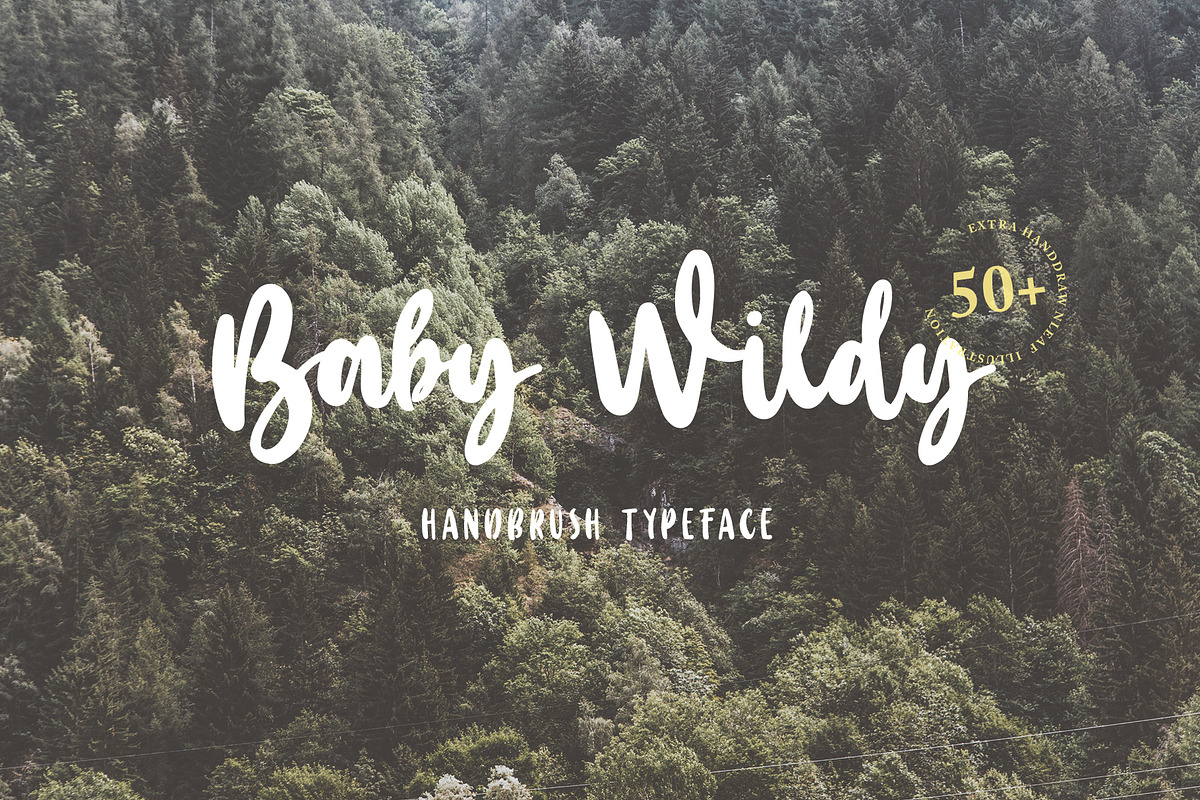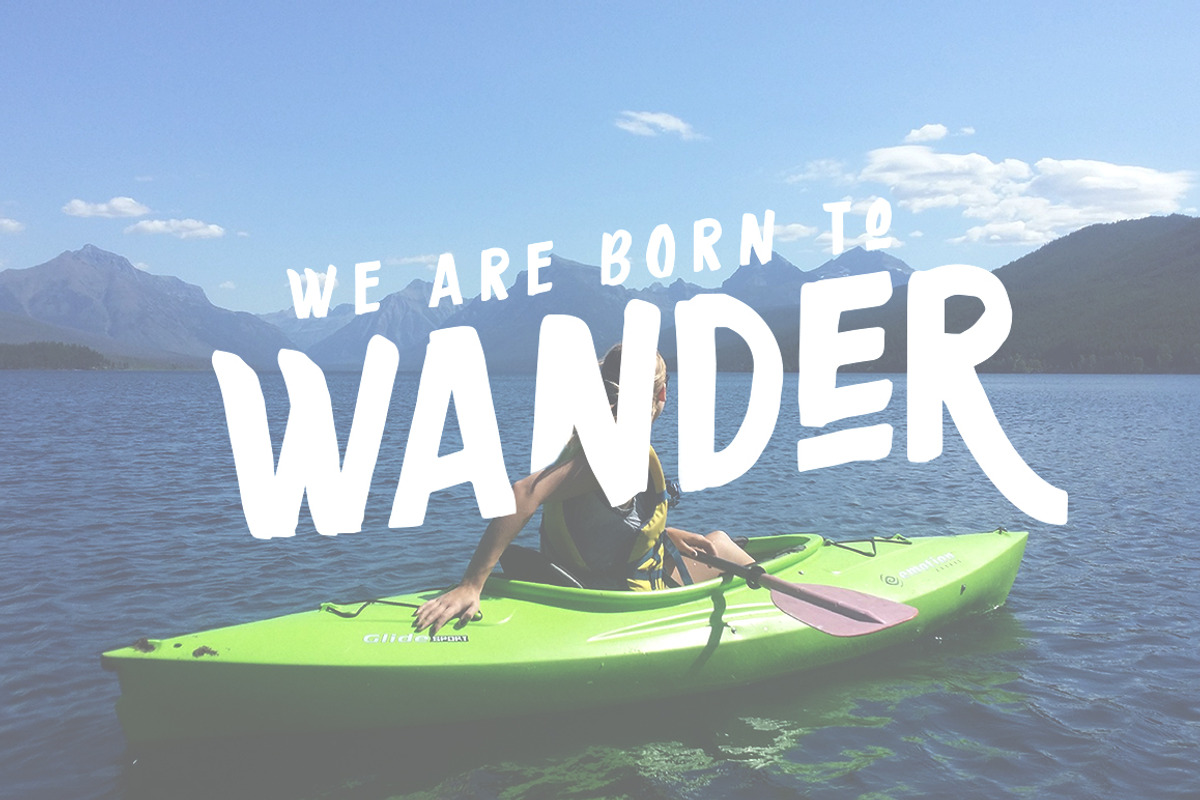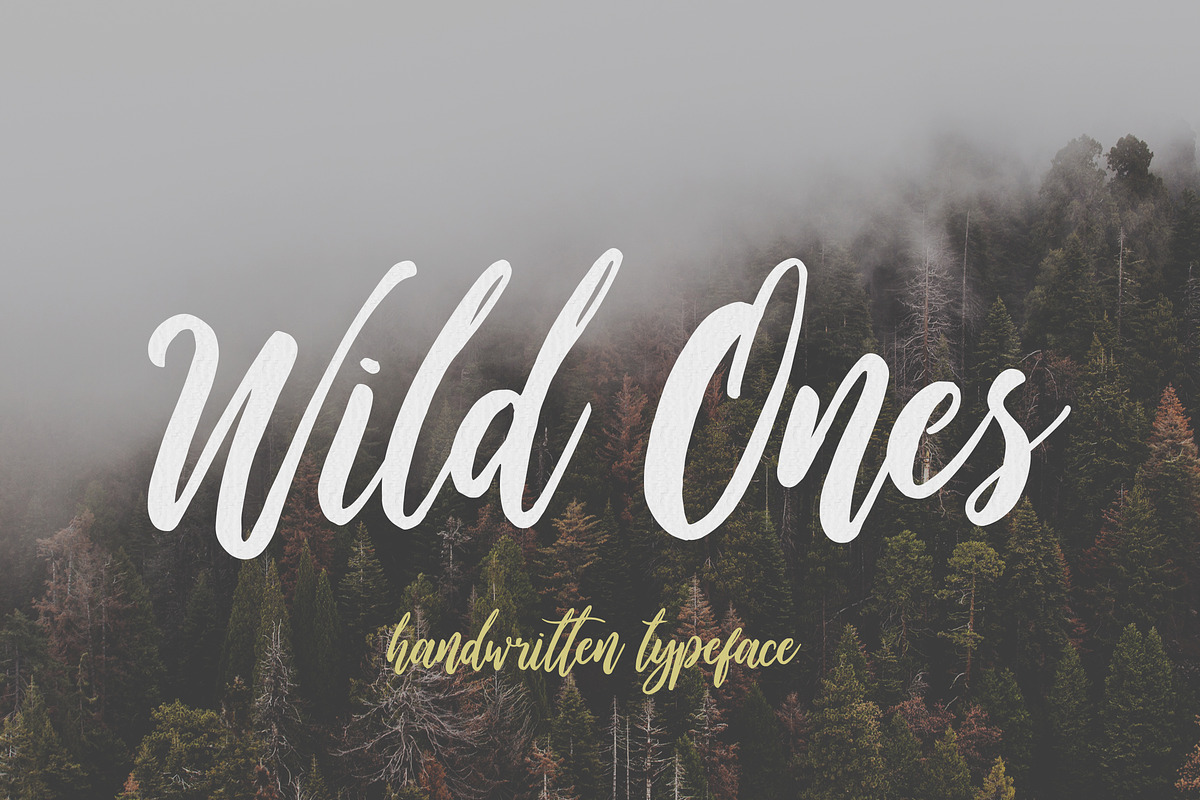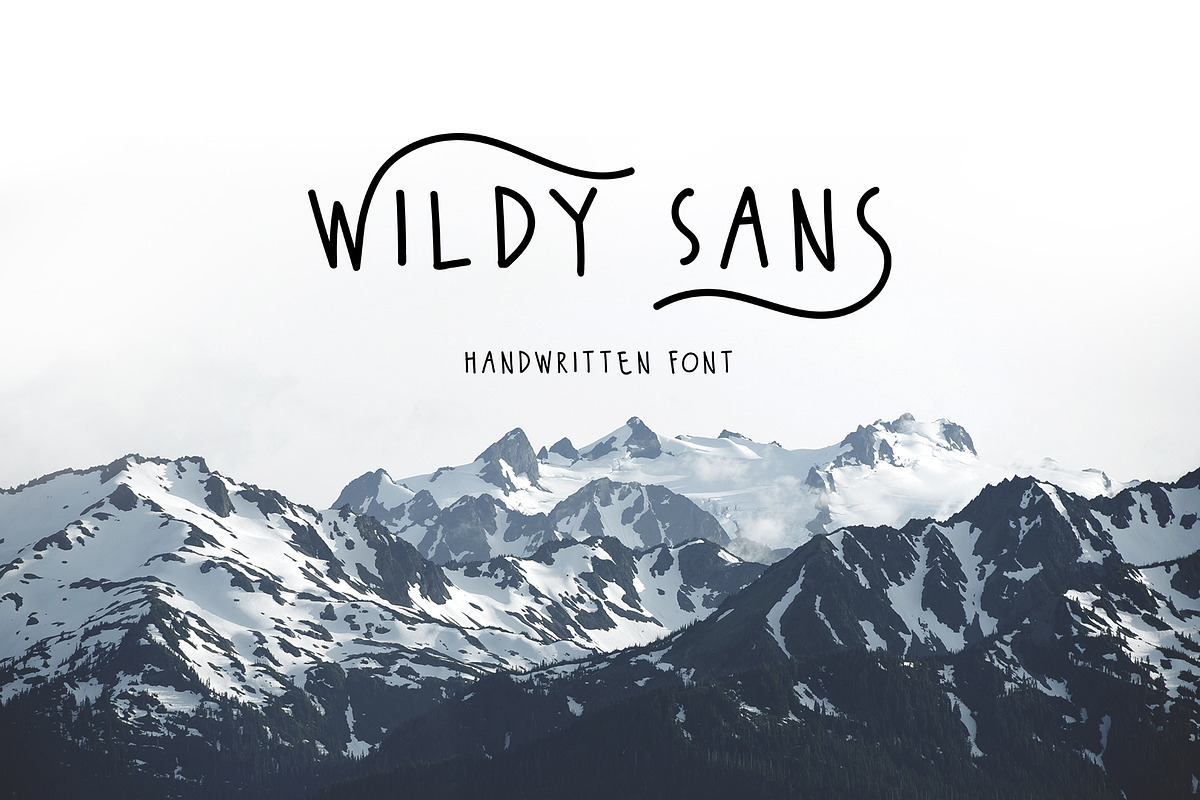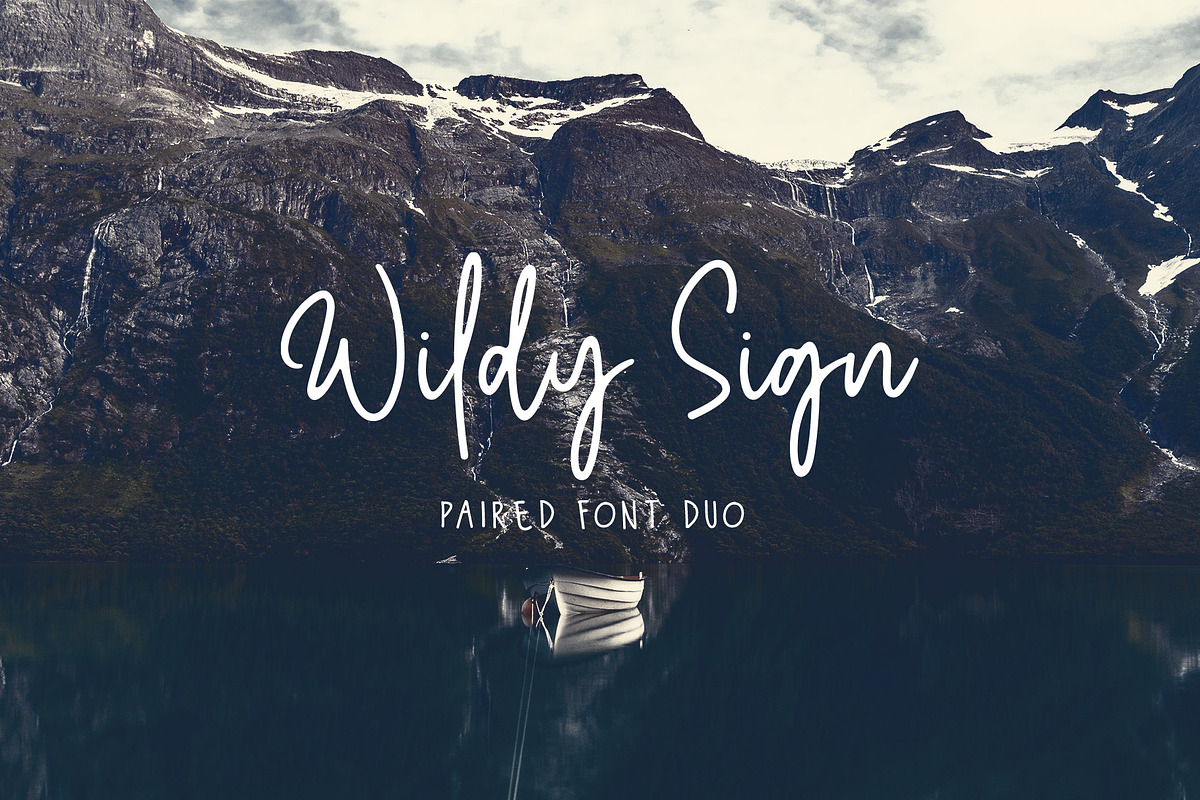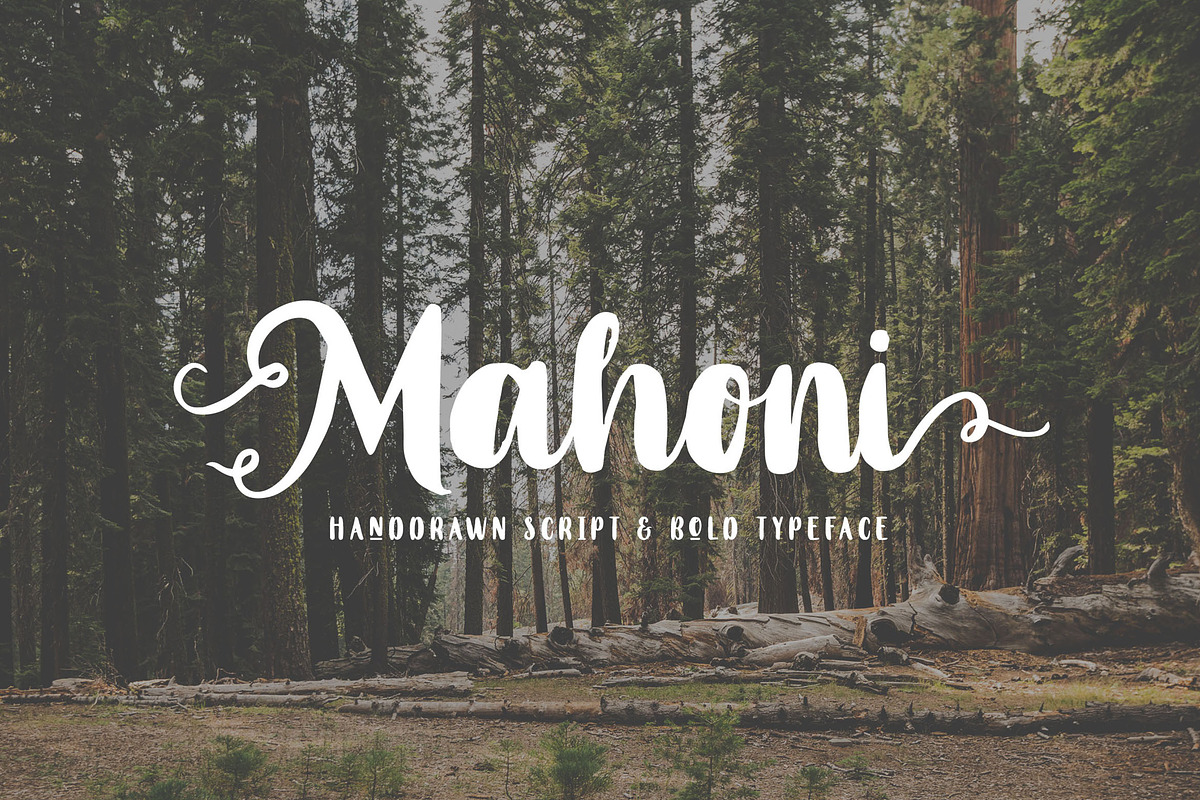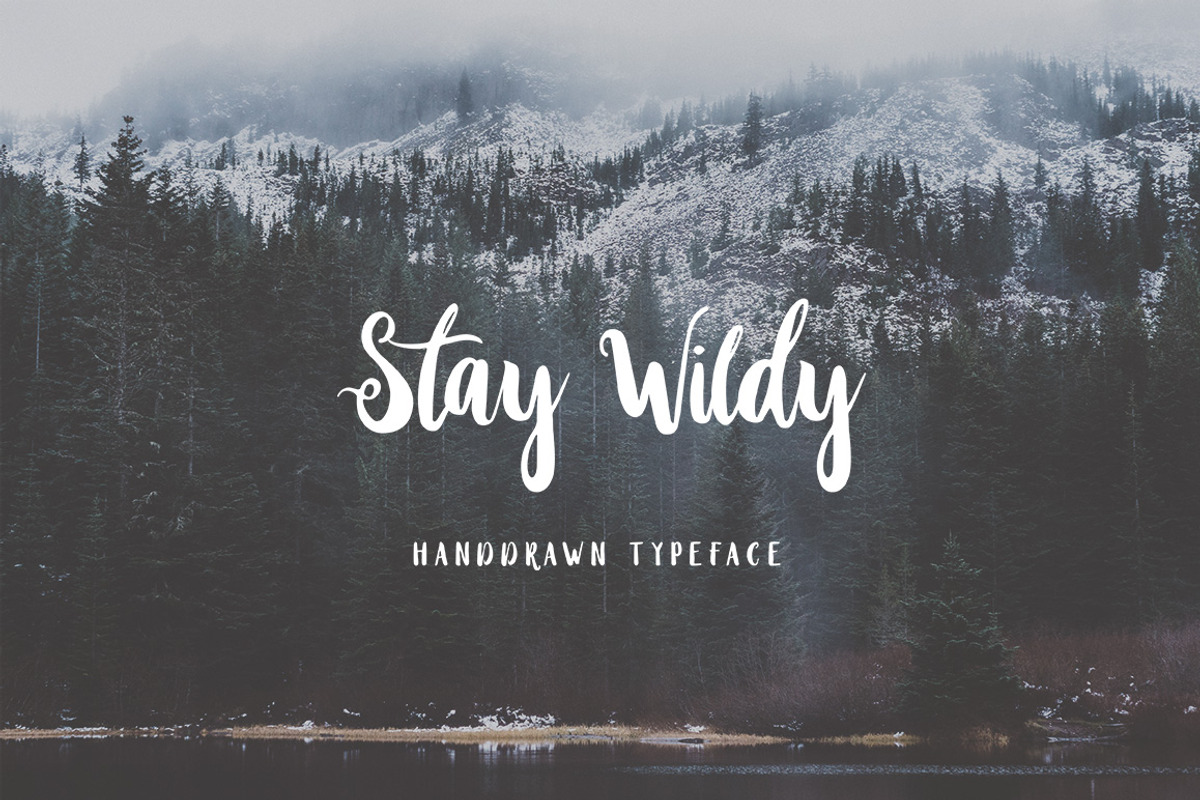
Wildy Wild Font Bundle!
Hello guys ! Let me present Handdrawn Vibes font bundle named Wildy Wild Font Bundle ! Including 14 handdrawn typeface with total 19 font, extras vector and ornament. The typeface in this bundle have a very handdrawn character and you can mix and match to get crazy vintage design and you can get all the font in this bundle just for only $19 !